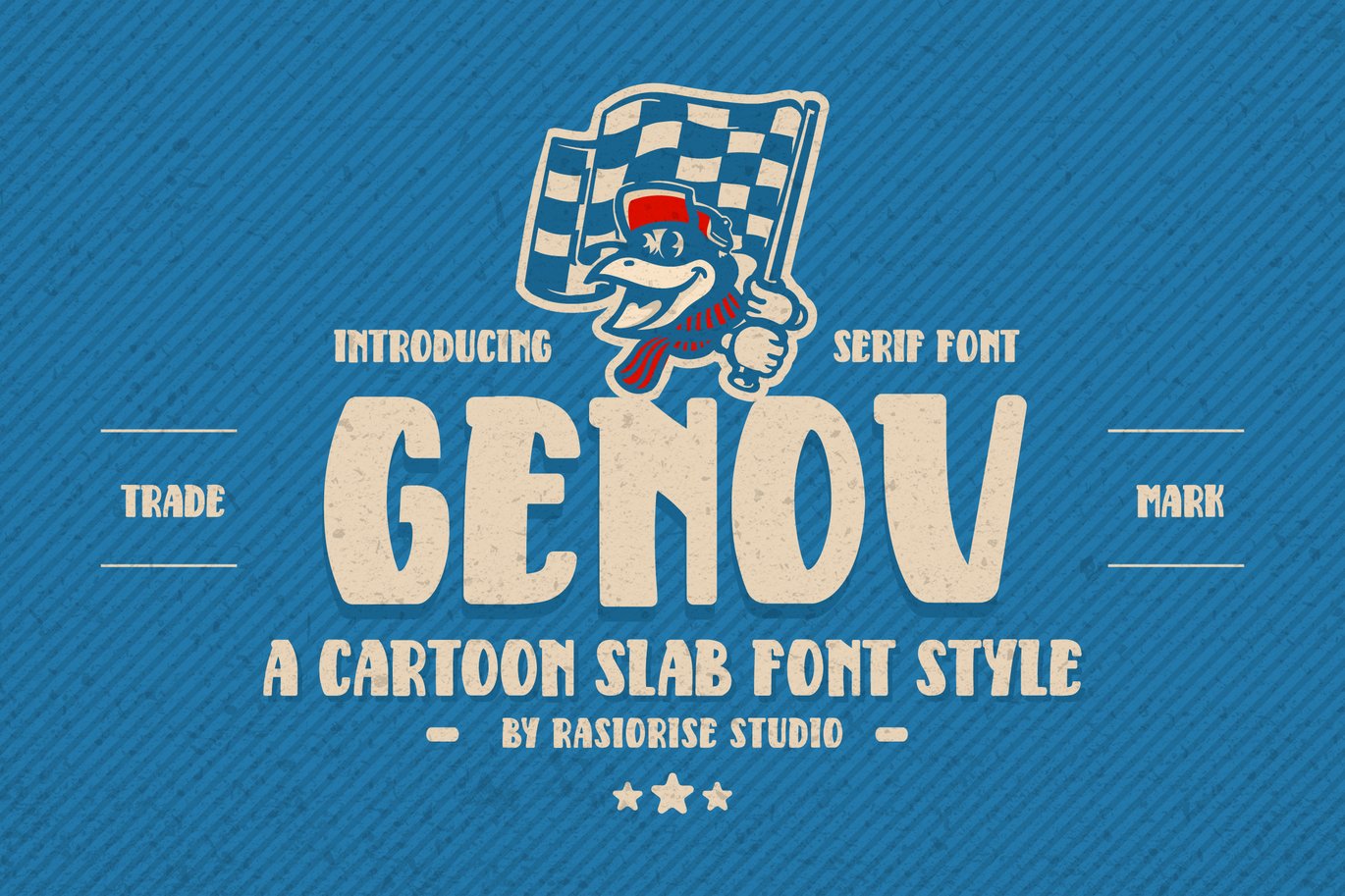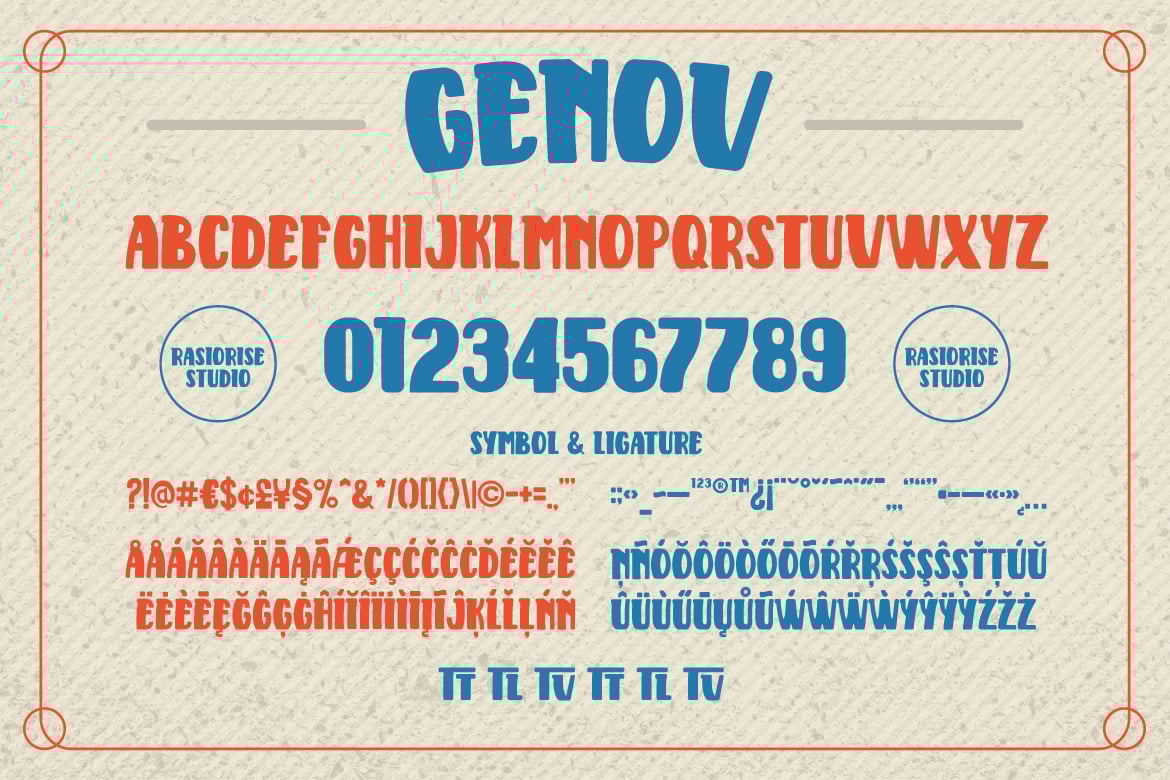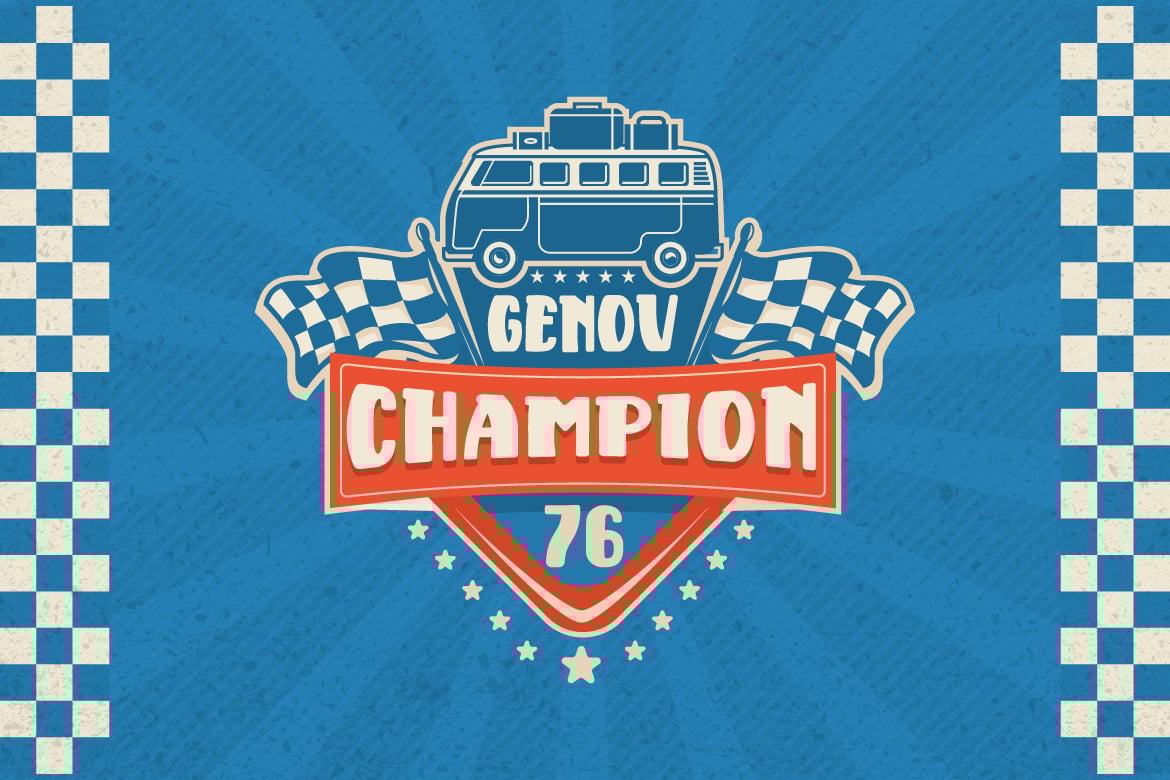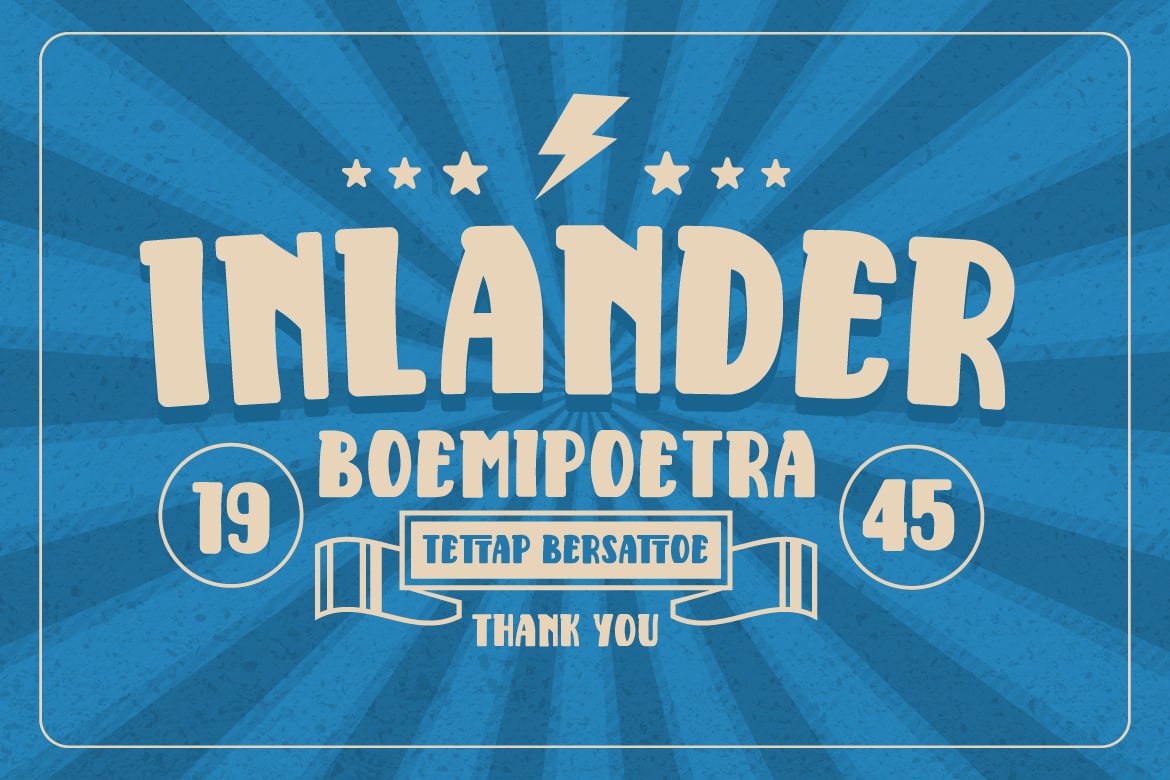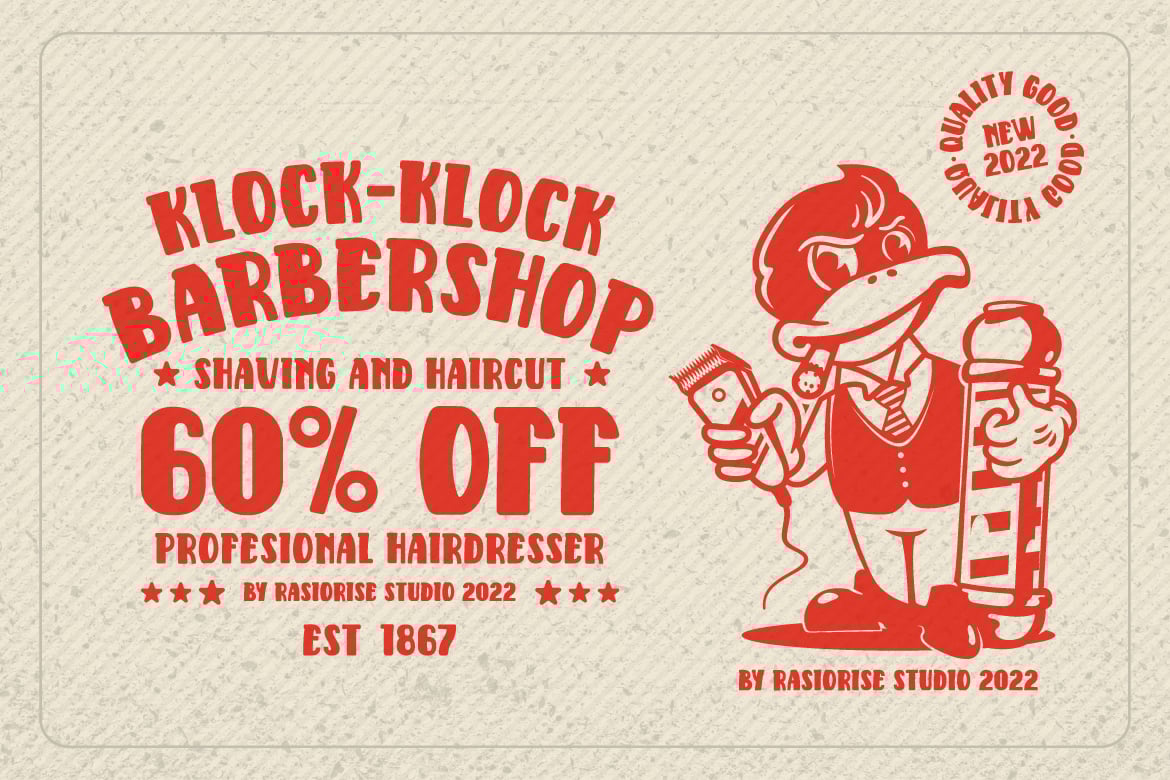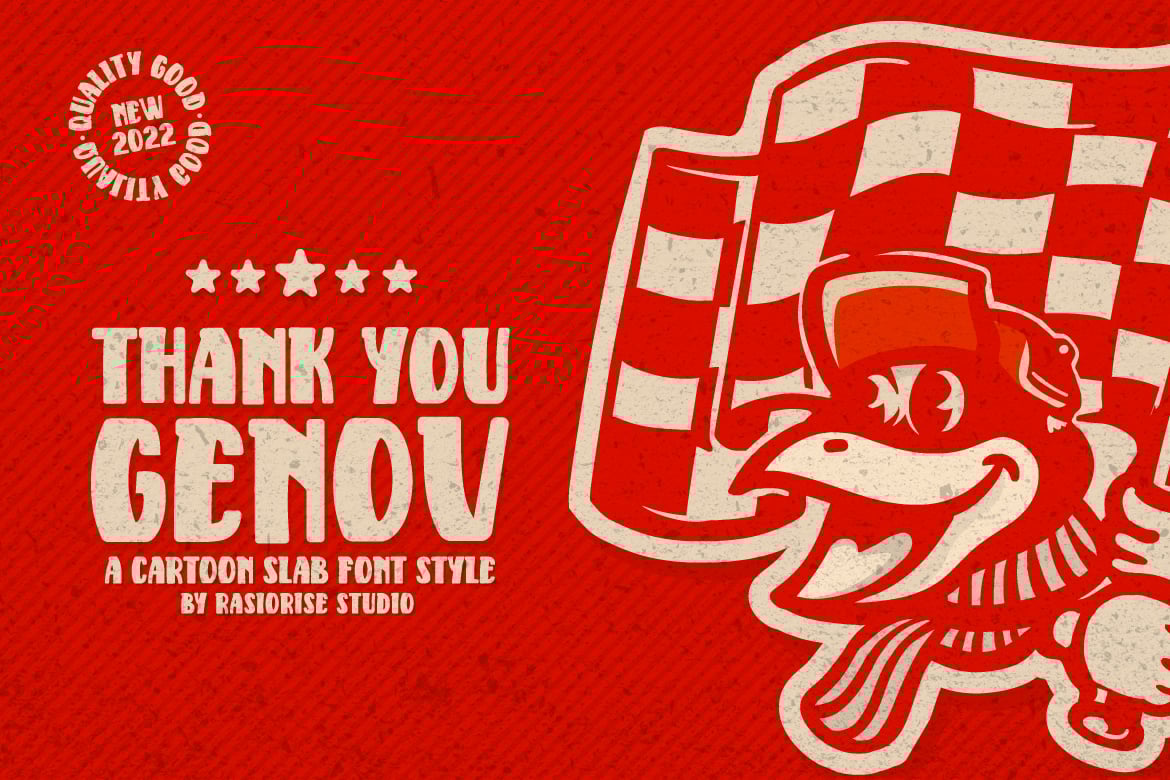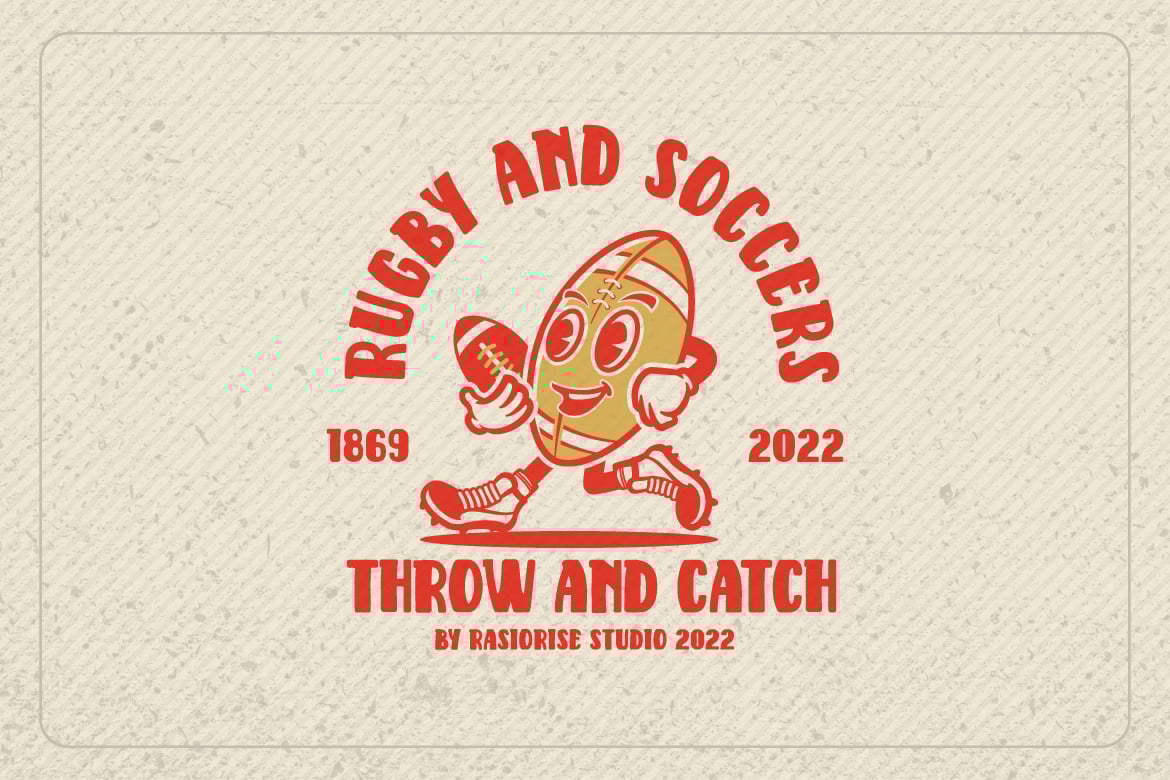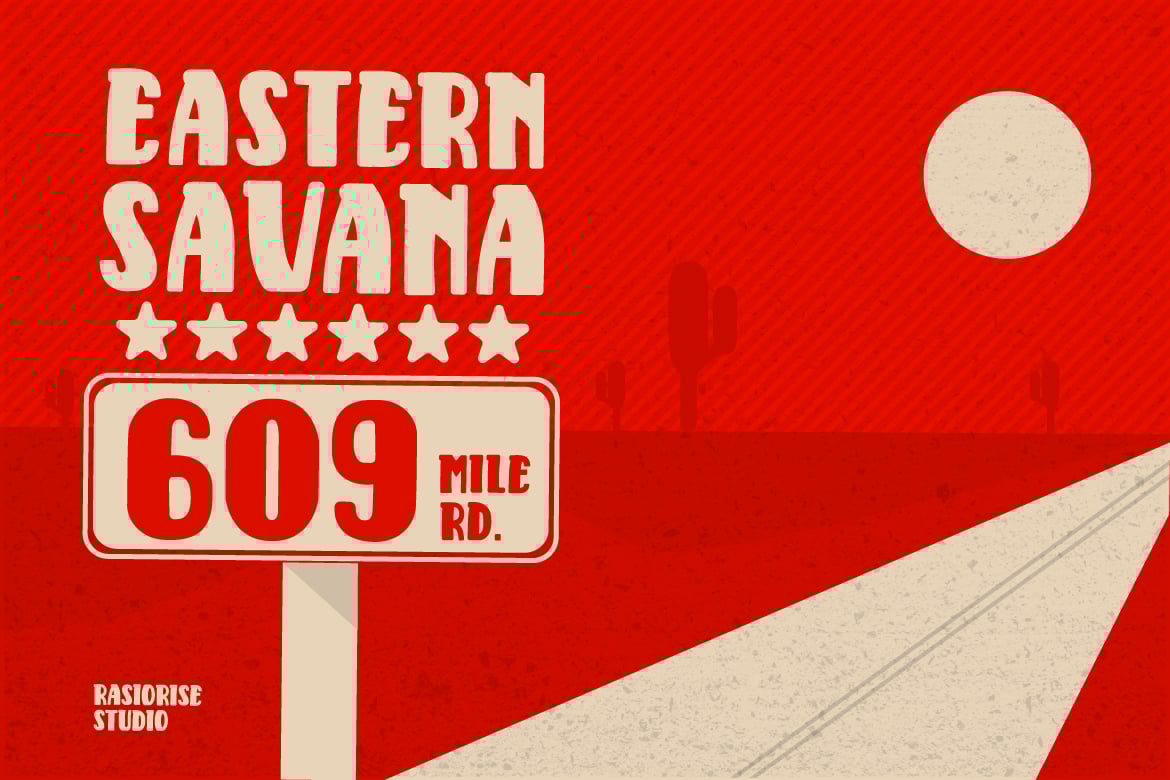
Genov – Cartoon Slab Font
Genov has been released for those of you who are looking for a very old serif slab cartoon font, The font is inspired by the old serif newspaper headline with a few combine to turn them into a bit of a classic cartoon style font.
Very suitable for Logotype, Book Cover, Children Book, Comic Text, Poster, Merchandise, Packaging Label, Badge/Emblem Logo and much more